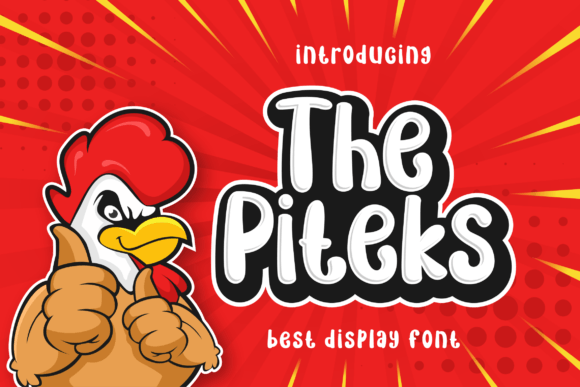
Immerse yourself in the world of The Piteks Font, a creation of Monotype, renowned for its boldness and authenticity in the display font genre. As a premium choice for branding endeavors, The Piteks shines in crafting captivating logos, T-shirt designs, creative products, and more. Its versatility extends beyond imagination, making it a must-have in your font arsenal.
With The Piteks as your trusted companion, you'll embark on a typographic journey like no other. Its striking, distinct style ensures that your designs stand out from the crowd, leaving an indelible mark on your audience's minds. Unleash your creativity and watch as your visions transform into tangible masterpieces, captivating all who lay eyes upon them.
The Piteks Font transcends boundaries, adapting effortlessly to a myriad of contexts. Whether it's the bustling streets or the serene countryside, The Piteks seamlessly blends in, enhancing your designs with its innate charm and versatility. It's the perfect font for those seeking a bold yet timeless aesthetic, a font that speaks volumes without uttering a single word.
Join the ranks of creative visionaries who have harnessed the power of The Piteks Font to elevate their projects to new heights. Its captivating presence adds depth and dimension to any design, evoking emotions and igniting imaginations. Let The Piteks be your font of choice, the catalyst that propels your creative endeavors to unprecedented success. Experience the transformative power of typography today!